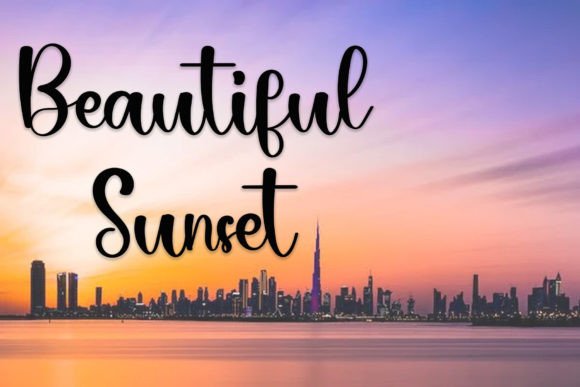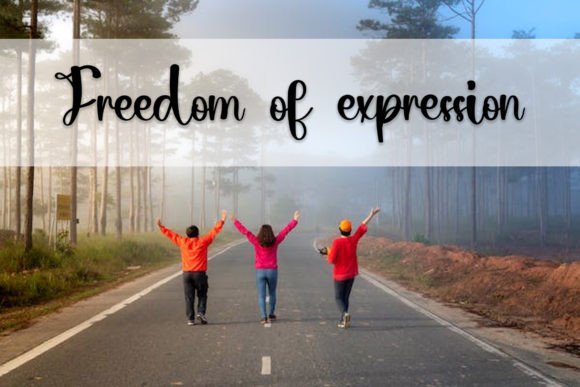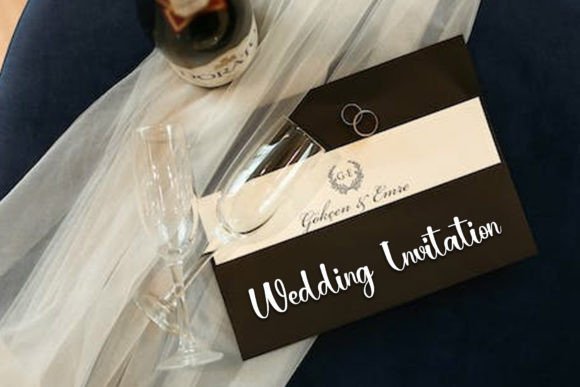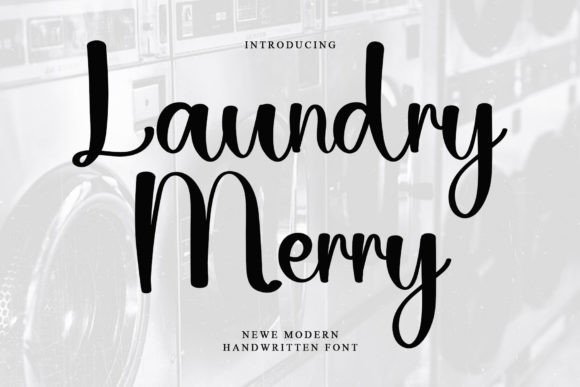
Introduction to Laundry Merry Font
Laundry Merry is a neat and beautiful handwritten font described by an elegant touch, perfect for your favorite projects.
Fall in love with its incredibly distinct and timeless style, and use it to create spectacular designs .